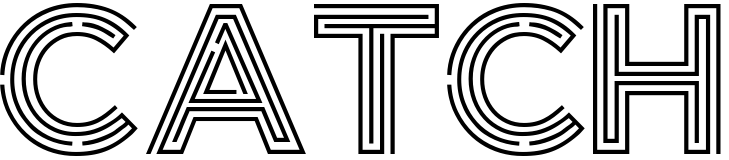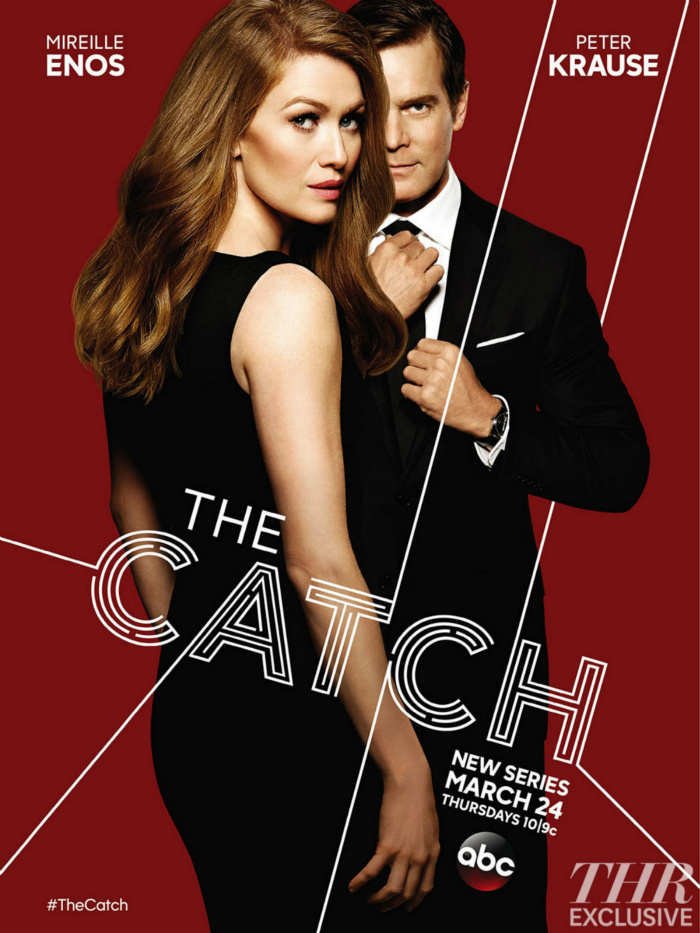
The Catch (TV show) Font
Fonts in UseThe Catch is a TV show that follows the story of Alice Vaughan, a private investigator who is also a fraud victim. She must hunt down her fiancé, who has stolen millions of dollars from her clients and disappeared.
Labyrinthus, a decorative font by Antonio Cerri, is used for the logo of the TV show. It comes in regular and inline versions, and is ideal for identity logos, posters, and 3D works.